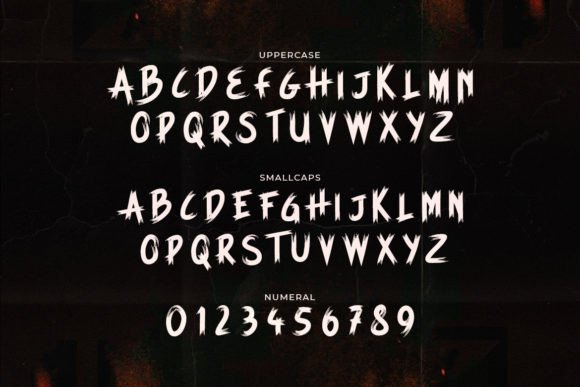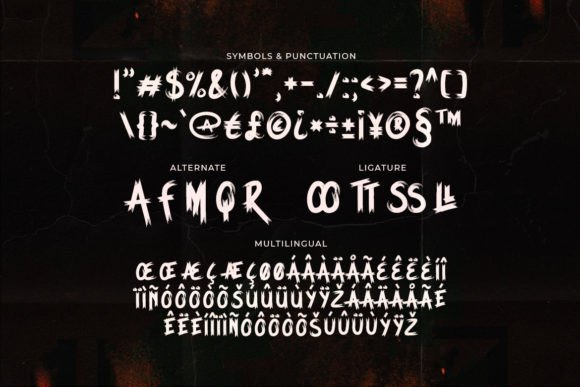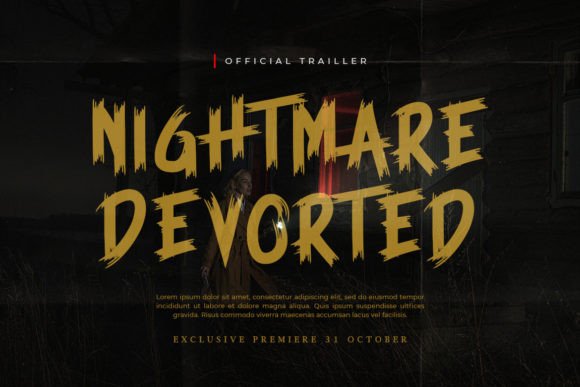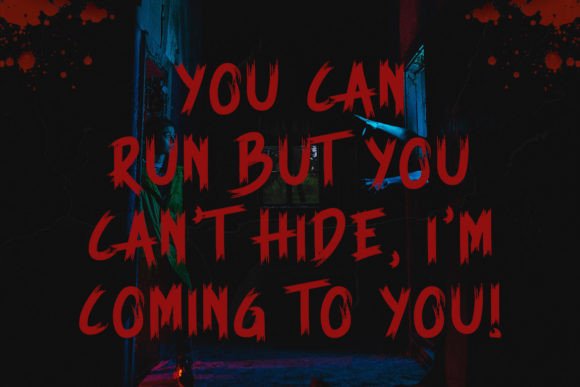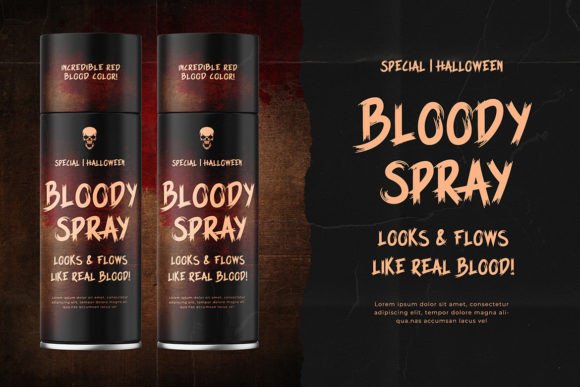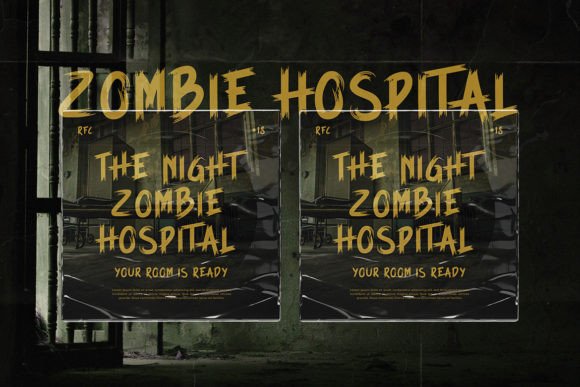
Dreadfory Font: The Spookiest Display Font for Your Scary Crafts
Are you a designer or crafter looking for a font that will add a touch of horror and eeriness to your projects? Look no further than the Dreadfory Font. This spooky display font is perfect for creating scary crafts, horror movie posters, t-shirts, and any other project that requires a spectacular and haunting look.
What is Dreadfory Font?
Dreadfory Font is a unique and terrifying display font that is sure to send chills down the spine of anyone who sees it. With its jagged and uneven lines, this font is reminiscent of creepy horror movie titles and haunted house signs. It’s the perfect addition to any project that requires a spooky and eerie feel.
Features of Dreadfory Font
- Unique and Spooky Design: Dreadfory Font has a one-of-a-kind design that is sure to stand out from the crowd. Its jagged and uneven lines give it a creepy and haunted look that is perfect for horror-themed projects.
- High-Quality Resolution: Dreadfory Font comes in high-quality resolution, ensuring that it looks sharp and clear even when used in large sizes.
- Versatile: Dreadfory Font can be used for a variety of projects, including scary crafts, horror movie posters, t-shirts, and more.
Uses for Dreadfory Font
Dreadfory Font is a versatile font that can be used for a wide range of projects. Here are some ideas to get you started:
- Scary Crafts: Add a touch of horror to your crafts with Dreadfory Font. Use it to create spooky signs, creepy decorations, and more.
- Horror Movie Posters: Create eye-catching horror movie posters with Dreadfory Font. Its spooky design is sure to grab the attention of horror fans.
- T-Shirts and Apparel: Use Dreadfory Font to create spooky t-shirts, hoodies, and other apparel. It’s perfect for horror-themed clothing and accessories.
- Halloween Decorations: Add a touch of horror to your Halloween decorations with Dreadfory Font. Use it to create spooky signs, creepy banners, and more.
Tips for Using Dreadfory Font
Here are some tips for using Dreadfory Font:
- Use it Sparingly: Dreadfory Font is a bold and attention-grabbing font, so use it sparingly to avoid overwhelming your design.
- Pair it with Other Fonts: Pair Dreadfory Font with other fonts to create a unique and interesting look. Try pairing it with a clean and simple font for a striking contrast.
- Experiment with Colors: Dreadfory Font looks great in a variety of colors, so experiment with different colors to find the one that works best for your project.